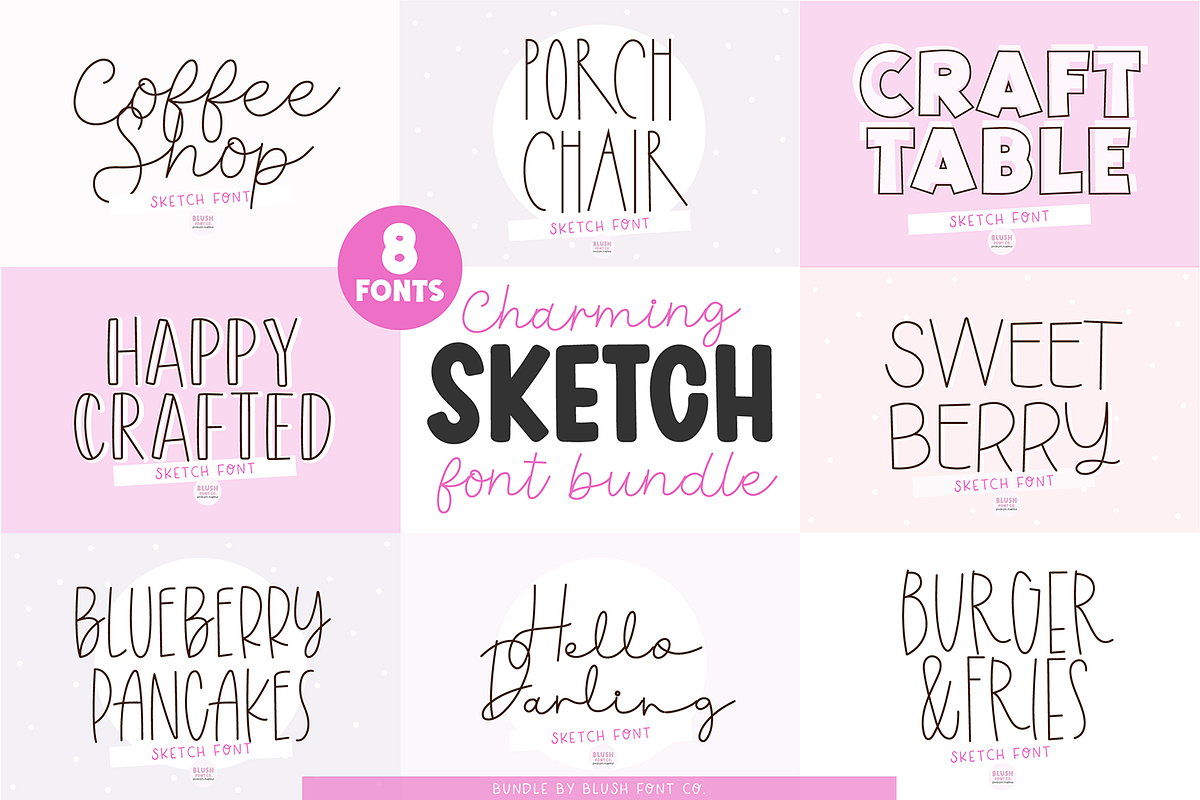
CHARMING SKETCH FONT BUNDLE Free Download
Charming Sketch Font Bundle Free Download
The Charming Sketch Font Bundle Free Download is a delightful collection of hand-drawn, sketch-style fonts designed to bring a whimsical and creative touch to your designs. Featuring a variety of playful and artistic letterforms, this bundle is perfect for creating custom logos, invitations, posters, and branding materials. Whether you're working on a fun, casual project or need a charming font for your creative work, this bundle offers the perfect mix of style and versatility.
Charming Sketch Font Bundle Free Download is ideal for designers looking to add a fun, handcrafted feel to their work. Whether for children's products, event designs, or artistic branding, this bundle gives you everything you need to create memorable, unique typography. Download this charming bundle today and enhance your designs with its sketchy, creative flair!